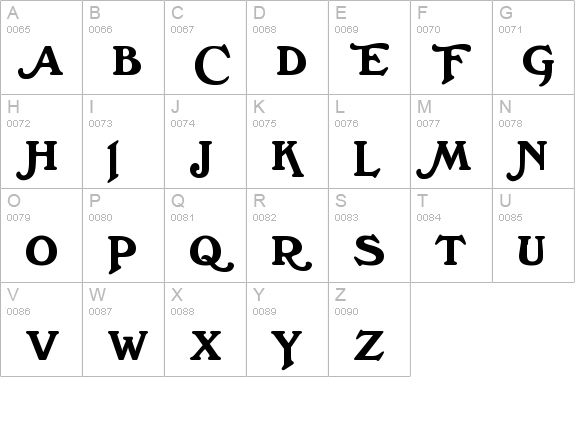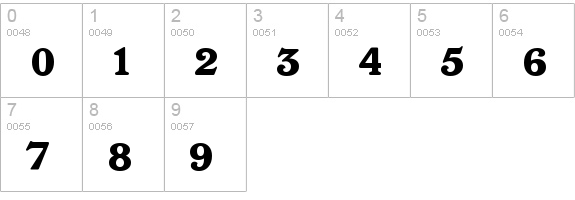
Introducing The CheddarCake Factory font, a delectable typographic creation that will surely satisfy your design cravings. This font is the perfect blend of boldness and elegance, making it the ideal choice for both playful and sophisticated projects. With its smooth curves and stylish serifs, The CheddarCake Factory font exudes a sense of charm and uniqueness that will effortlessly elevate any design. Whether you're crafting eye-catching logos, designing captivating headlines, or creating stunning invitations, this font will add a touch of personality and flair to your work. What makes The CheddarCake Factory font even more irresistible is that it is freely available to download at FontsMarket.com. Yes, you read that right – this incredible font can be yours without a cost. So, why wait? Indulge in this mouthwatering typographic delight and unleash your creativity like never before. The CheddarCake Factory font comes in a variety of weights and styles, allowing you to experiment and find the perfect fit for your project. Whether you prefer a bold and assertive look or a more delicate and refined aesthetic, this font has got you covered. Featuring extensive language support and a wide range of special characters, The CheddarCake Factory font ensures that you can express yourself in any language or style. Its versatility knows no bounds, making it a must-have addition to any designer's toolbox. So, don't miss out on this incredible opportunity to enhance your designs with The CheddarCake Factory font. Download it for free at FontsMarket.com and let your creativity soar to new heights. Get ready to experience the delectable blend of elegance and playfulness that only this font can offer. Bon appétit!